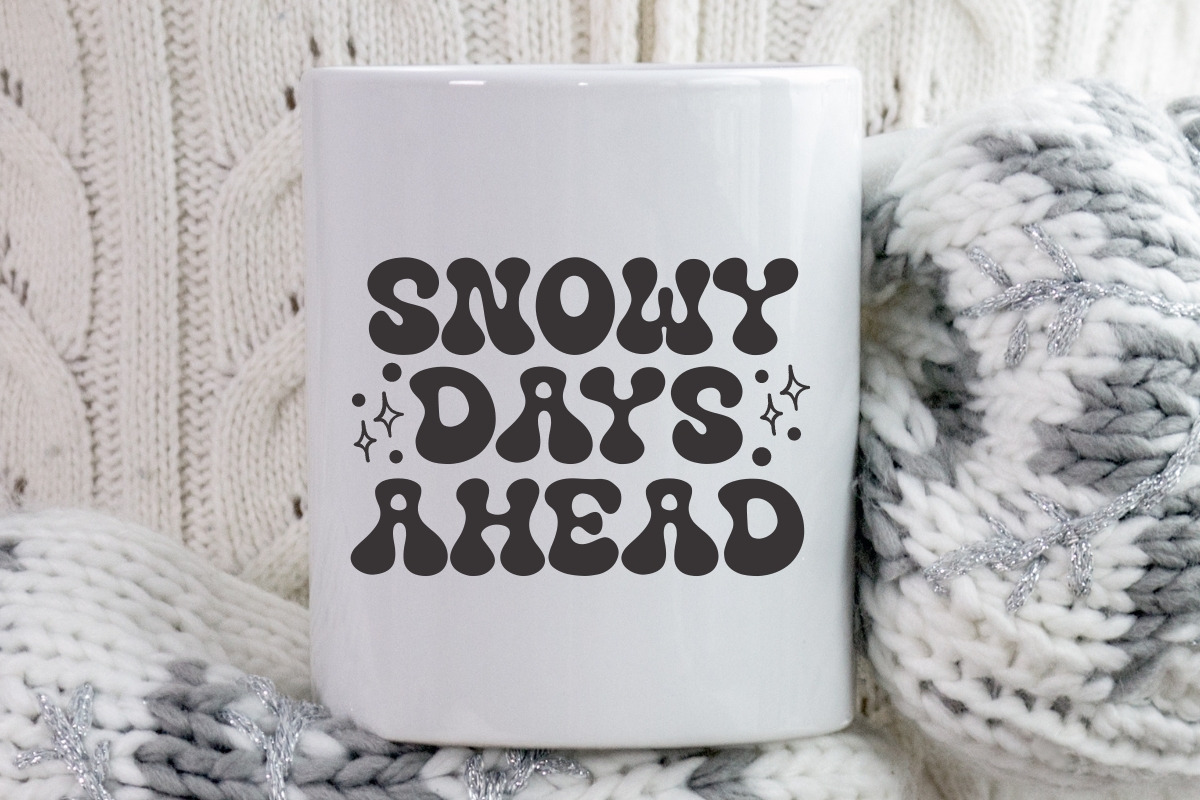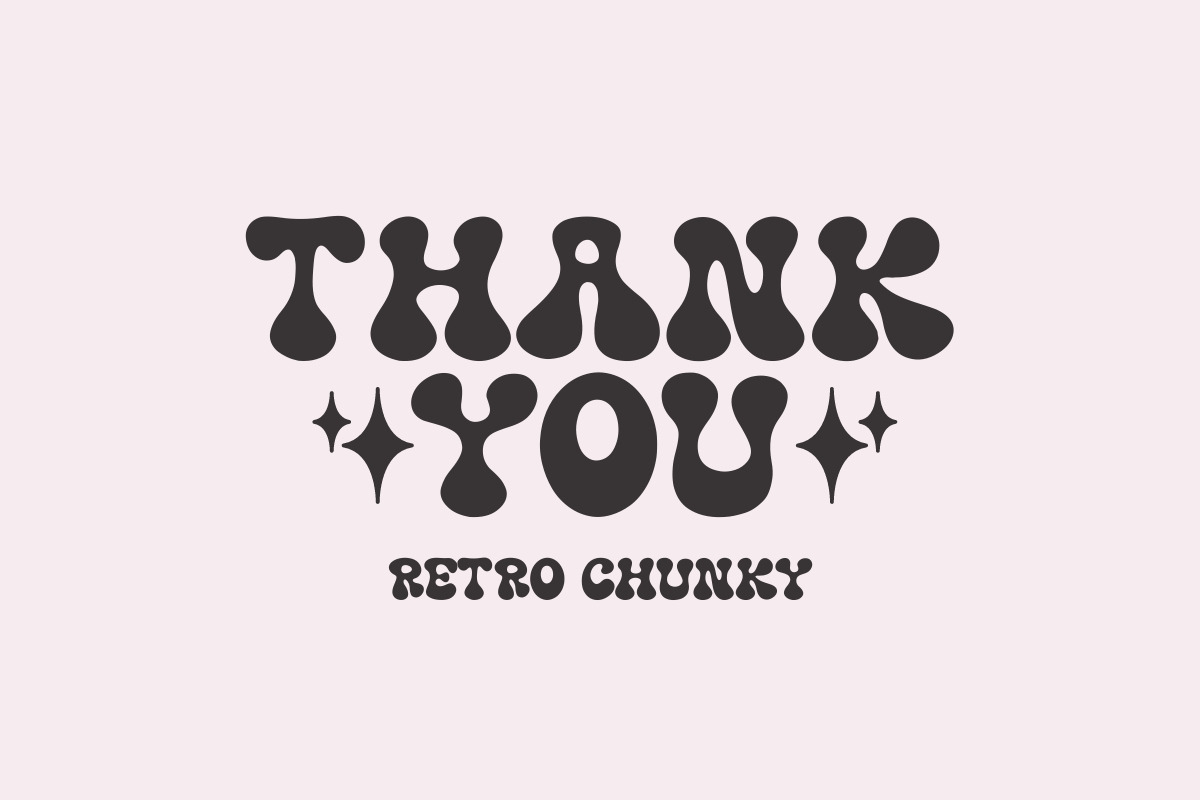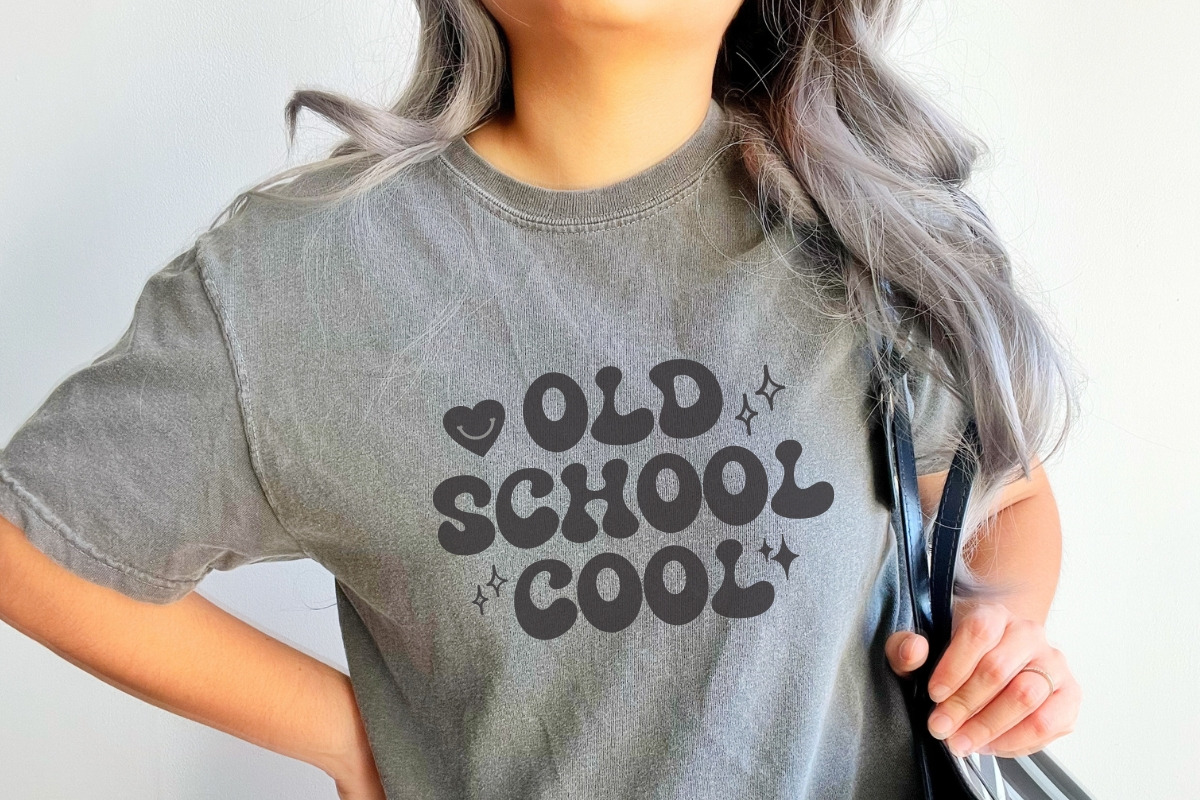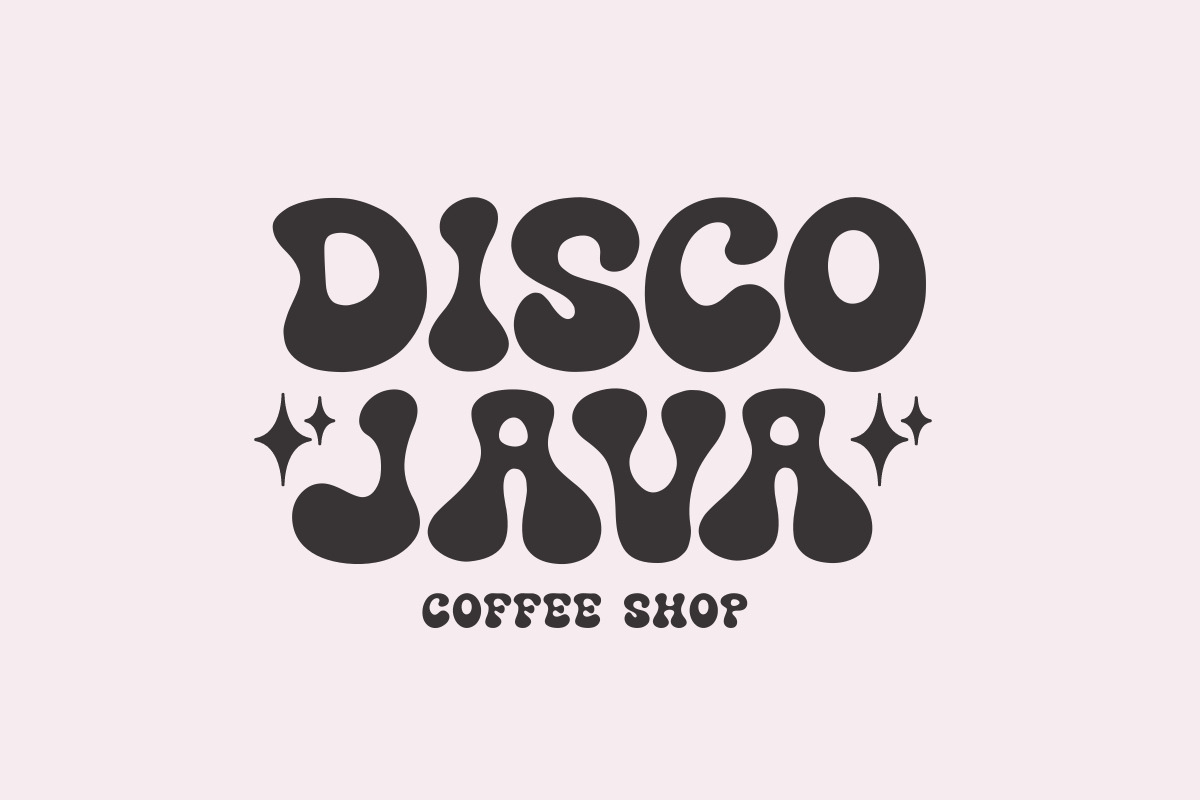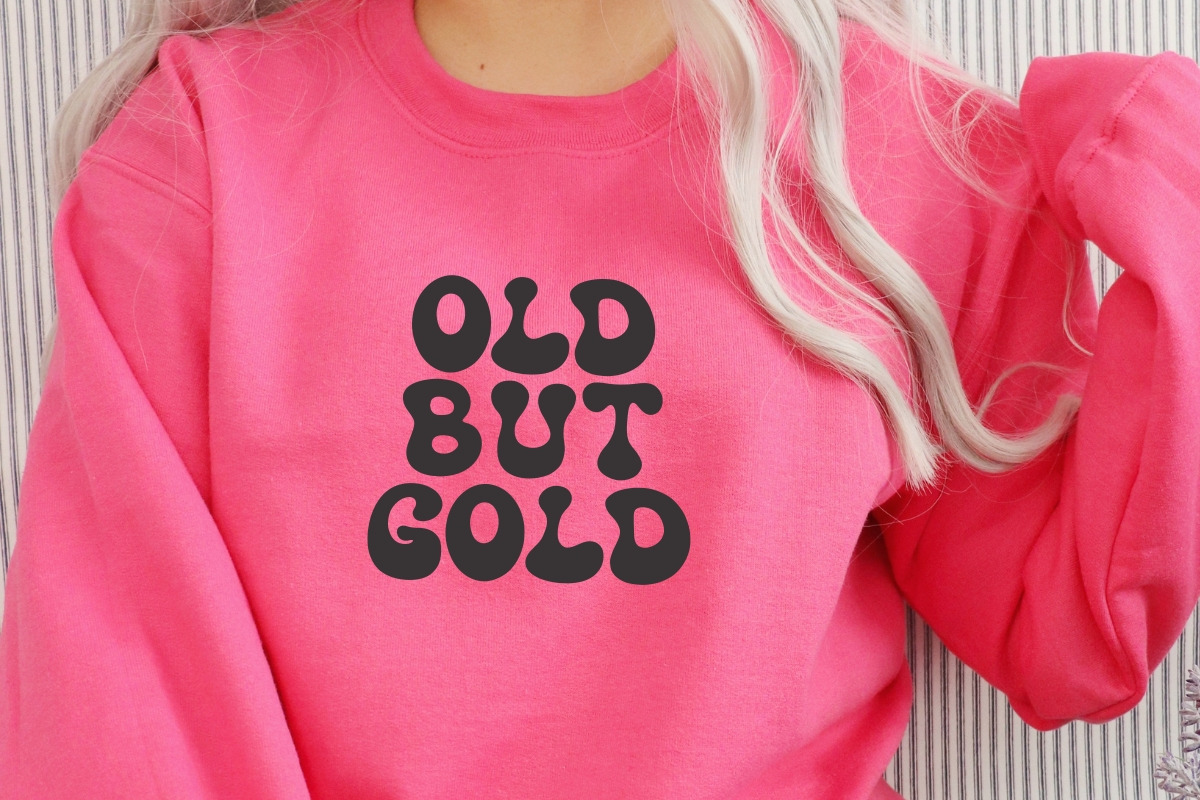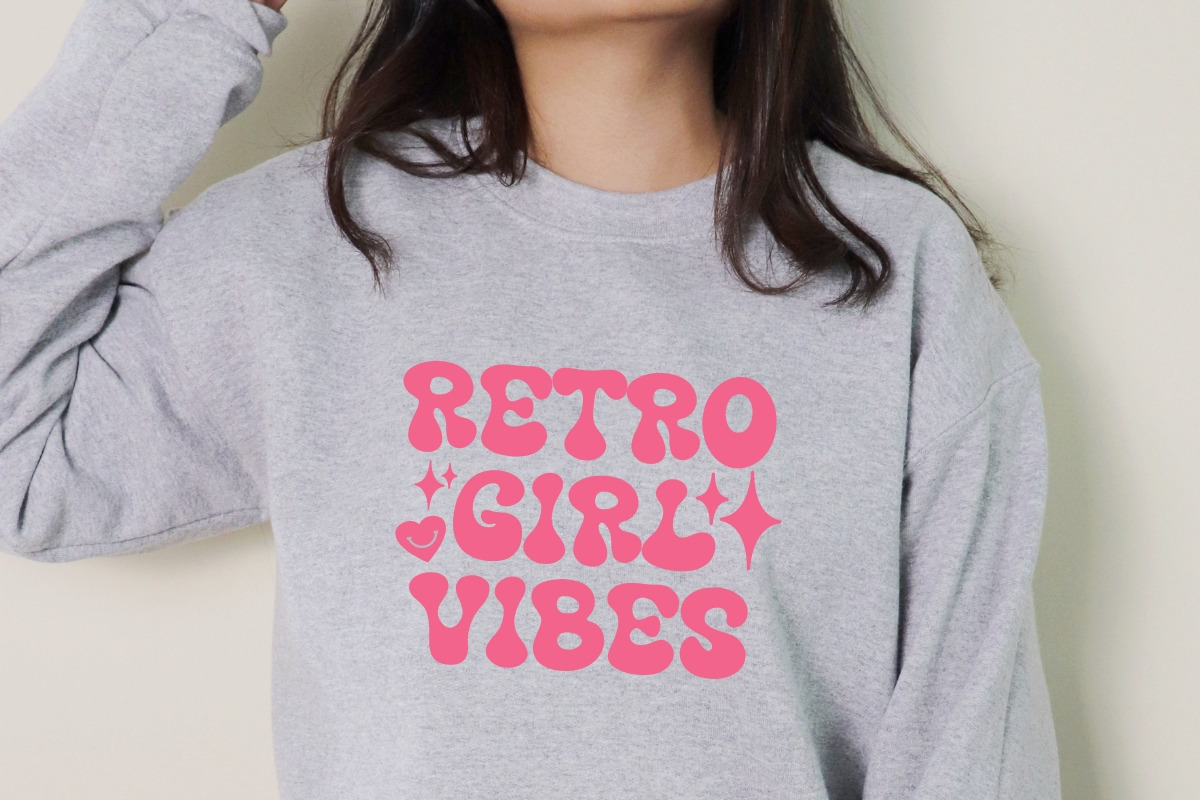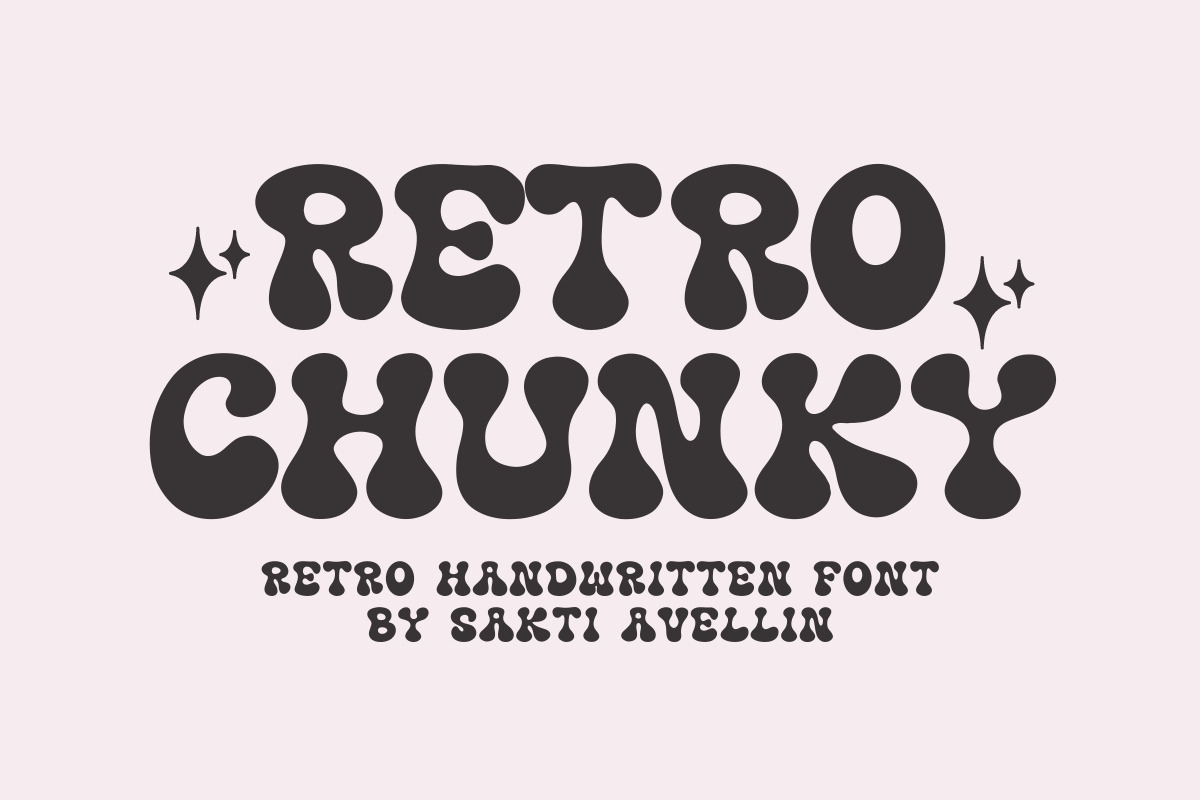
Retro Chunky - Handwritten Font
Retro Chunky is a bold and retro handwritten font designed to bring a groovy, nostalgic energy to your creative projects. This bubbly display typeface features thick, hand-drawn letterforms and a liquid-inspired silhouette, making it an ideal choice for vintage branding, funky posters, summer apparel, and eye-catching social media graphics. Its playful, bouncing rhythm and organic curves ensure your headlines pop with a unique, handcrafted charm. Whether you are designing for retro stickers, t-shirts, or whimsical greeting cards, Retro Chunky adds a vibrant and soulful twist to every piece of work.